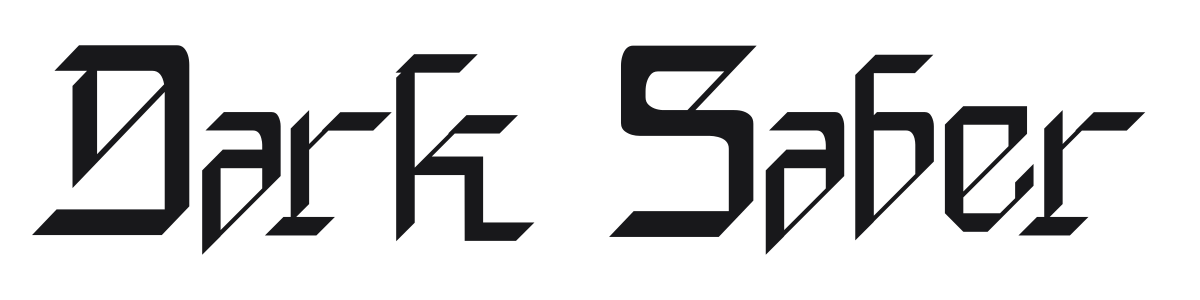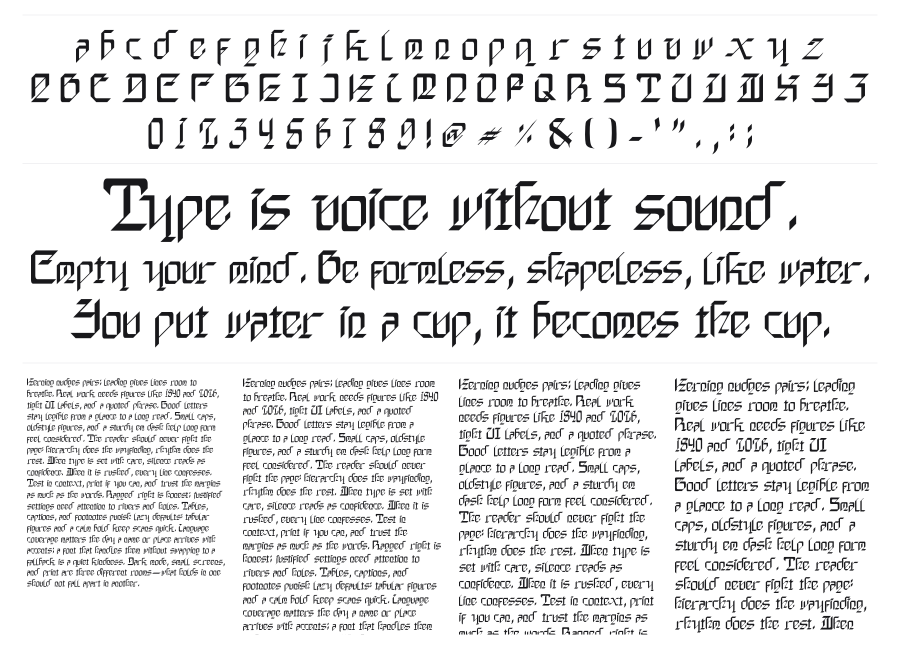
Dark Saber
Dark Saber is a geometric gothic display font that strips blackletter tradition down to hard angles and blade-sharp diagonals. The construction feels mechanical and futuristic rather than calligraphic, landing somewhere between medieval and sci-fi. Strong at large sizes for game titles, band logos, and dark-themed editorial work.